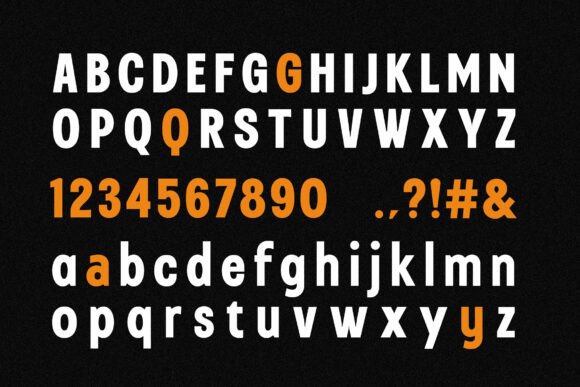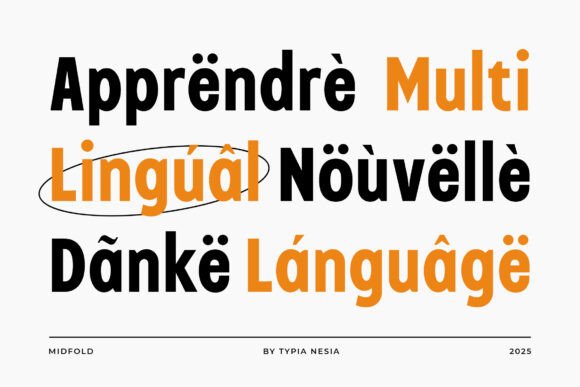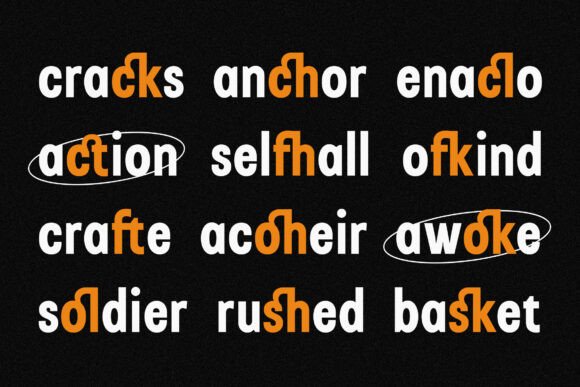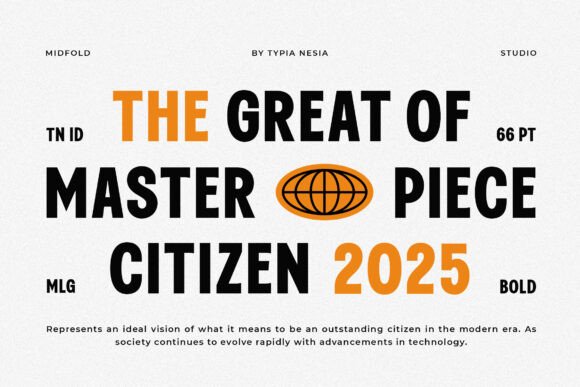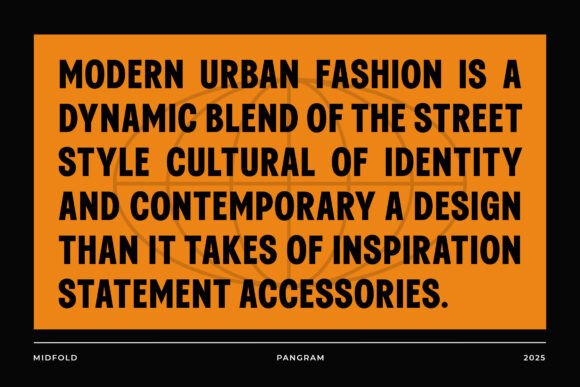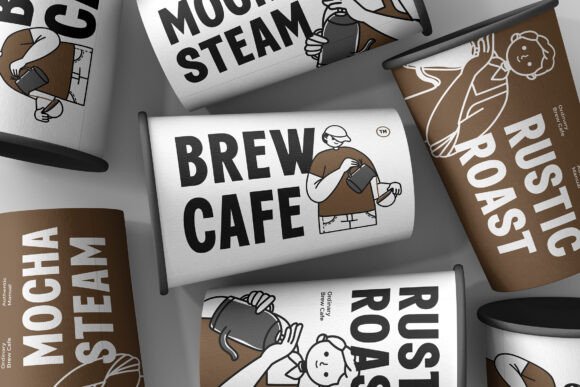
Unlocking the Power of Typography: Midfold Font
Have you ever been working on a design project, staring at a blank canvas, and suddenly, a spark of creativity hits you? The words start flowing, and the ideas begin to take shape. For designers, this moment is pure magic. It’s the culmination of hours of research, experimentation, and practice. And the right font can make all the difference.
That’s where the Midfold Font comes in – a modern sans serif display font designed to make a strong impact. With its bold weight and clean lines, it’s the perfect companion for designers seeking a high-quality design resource that can elevate their creative project. Whether you’re working on a logo, branding, packaging, or poster, the Midfold Font is the ideal choice for making a statement.
Key Features of Midfold Font
- High-quality design resource ideal for creative projects, offering a unique and elegant style.
- Transparent background option, allowing for seamless integration into various design elements.
- Available in a single size, making it easy to use across various design projects.
- Unique characteristic: Midfold Font features a distinctive, modern design that can add a touch of sophistication to any creative project.
Honest Review: Midfold Font
I recently came across the Midfold Font, a free design resource that caught my attention. As a designer, I’m always on the lookout for high-quality fonts to enhance my creative projects.
- ✨ Sleek and modern design aesthetic, perfect for modern branding and design projects.
- ✨ Transparent background option, allowing for easy layering and composition.
- ⚠️ Limited font sizes and styles, may not be suitable for complex or large-scale projects.
- ⚠️ Some users may find the font a bit too bold, potentially overwhelming certain designs.
Overall, I’m impressed with the Midfold Font’s potential as a design resource. While it may have some limitations, its sleek design and transparent background options make it a great addition to any designer’s toolkit.
Midfold Font
The Midfold Font is a versatile and high-quality design resource that can elevate your creative project with its unique aesthetic. With a transparent background, this font is perfect for designers who want to add a touch of sophistication to their work.
Tips for Getting the Most Out of Midfold Font
Here are some tips for getting the most out of the Midfold Font:
- Use the font in combination with other design elements to create a cohesive look.
- Experiment with different font sizes and styles to add visual interest to your design.
- Use the font to create a consistent brand identity across your marketing materials.
The Midfold Font is perfect for a variety of creative projects, including:
- Business cards and marketing materials.
Q: Does the Midfold Font have a transparent background?
Yes, the Midfold Font has a transparent background, making it easy to use on both light and dark backgrounds. This feature is especially useful for designers working on creative projects that require a high level of customization.